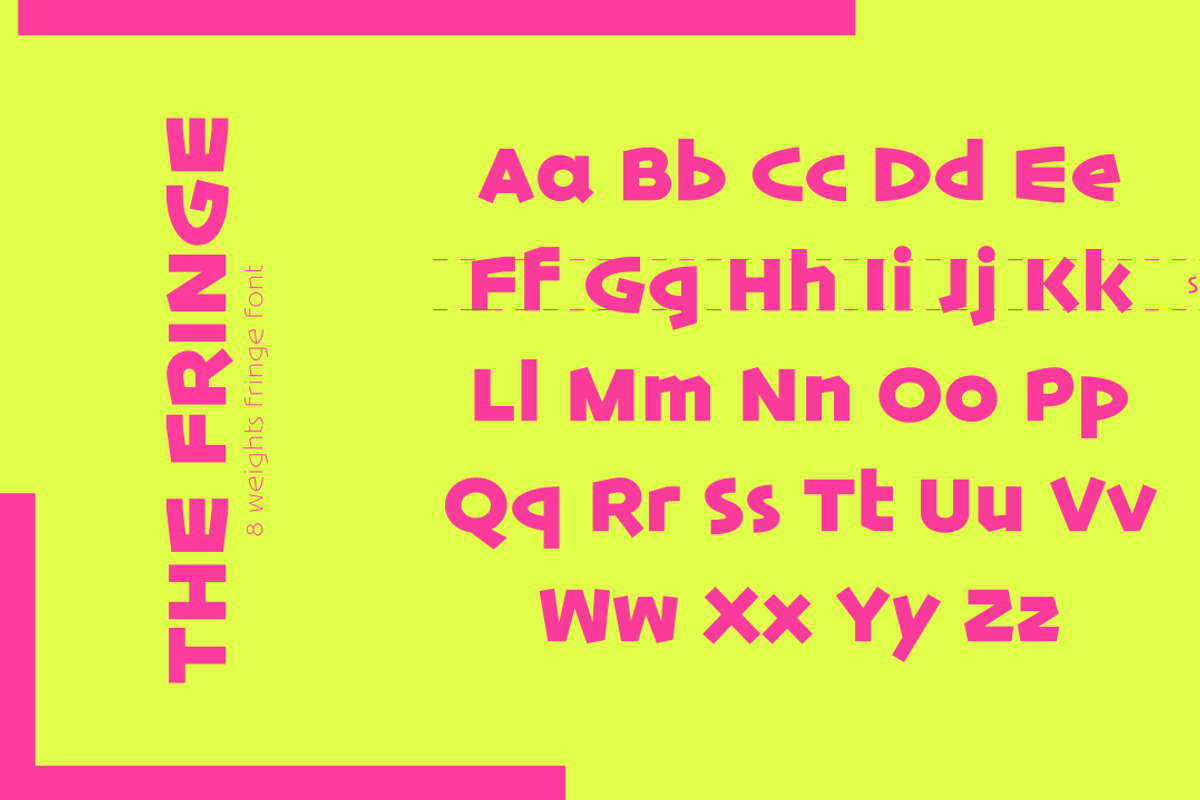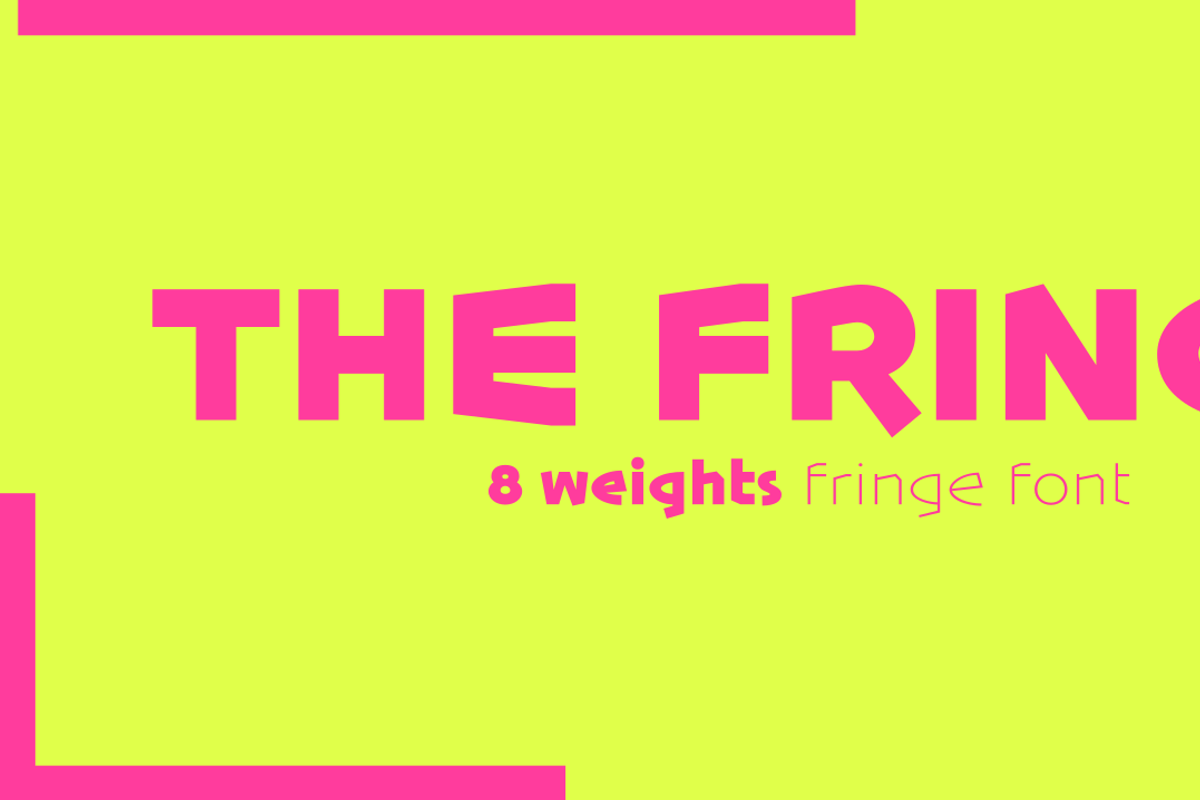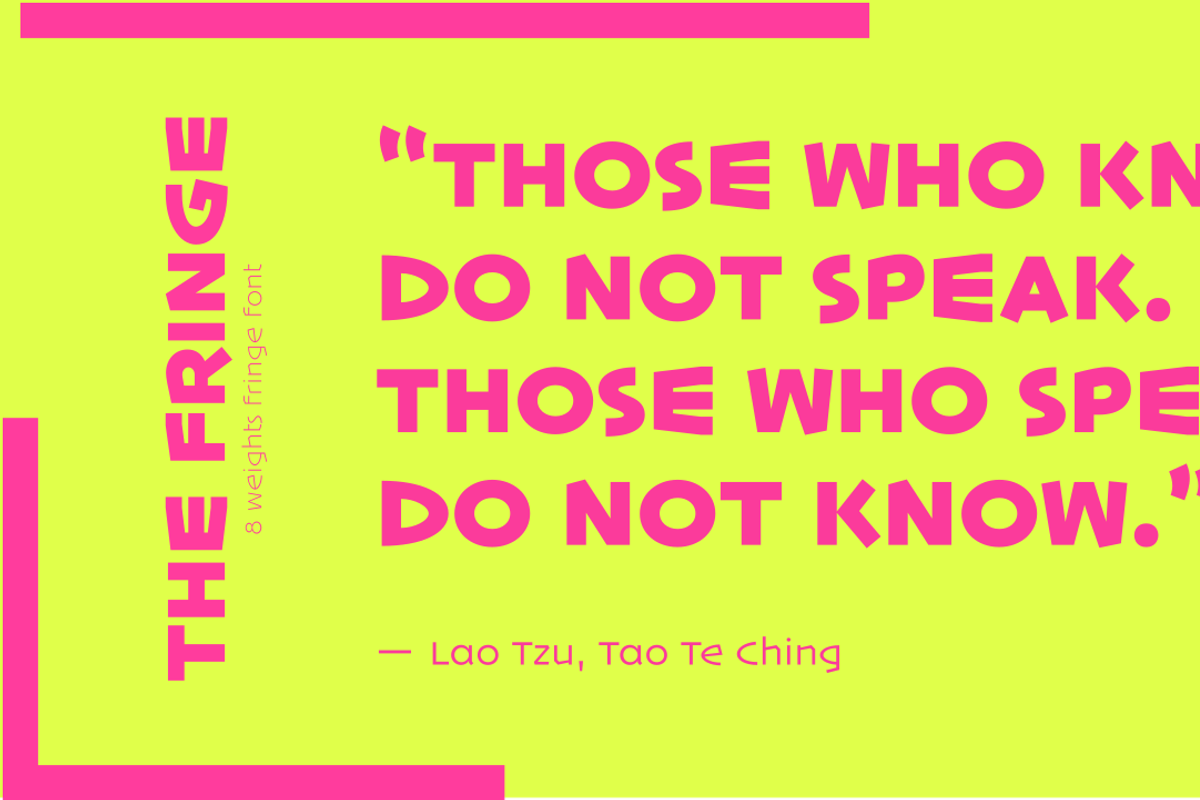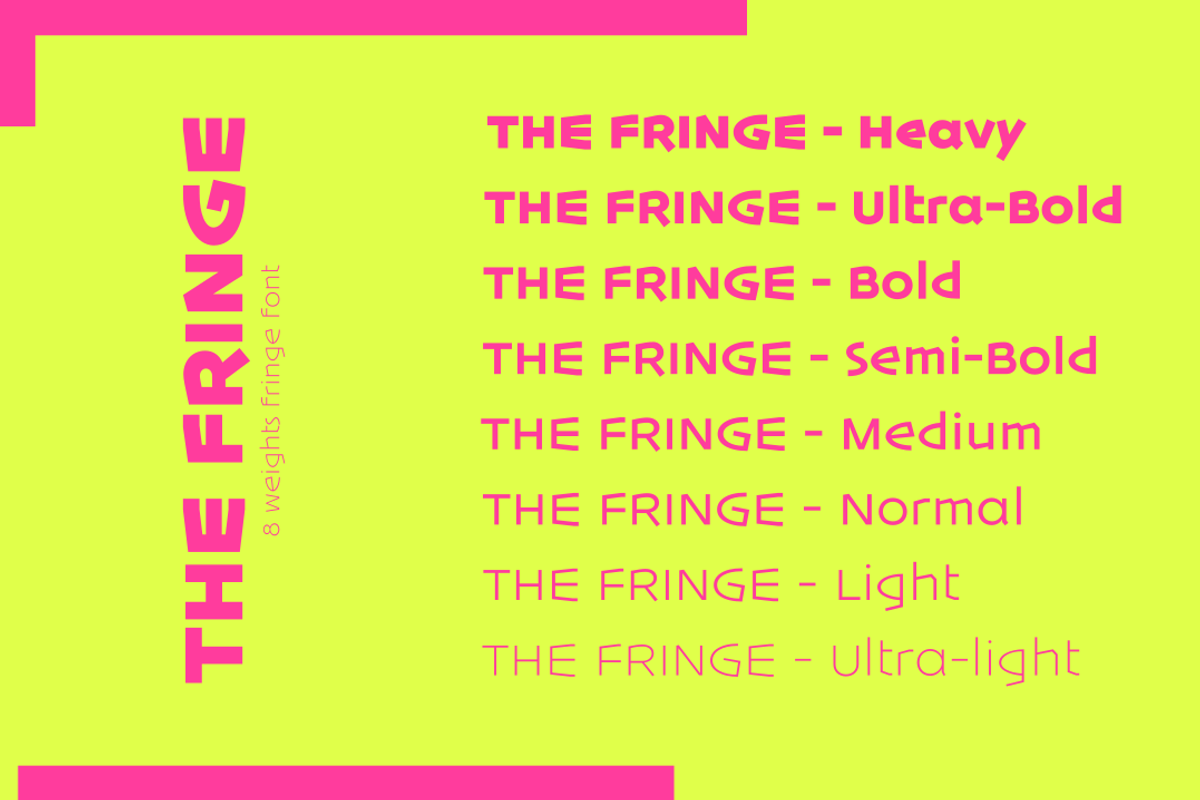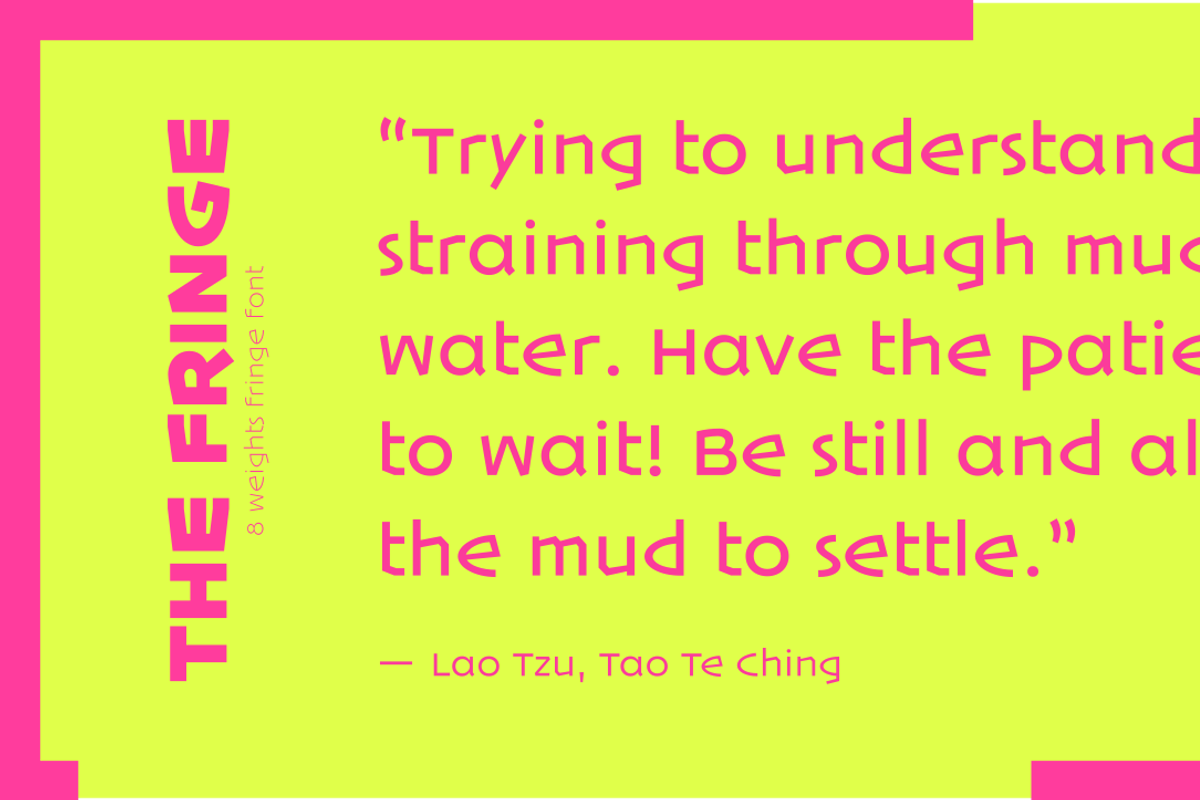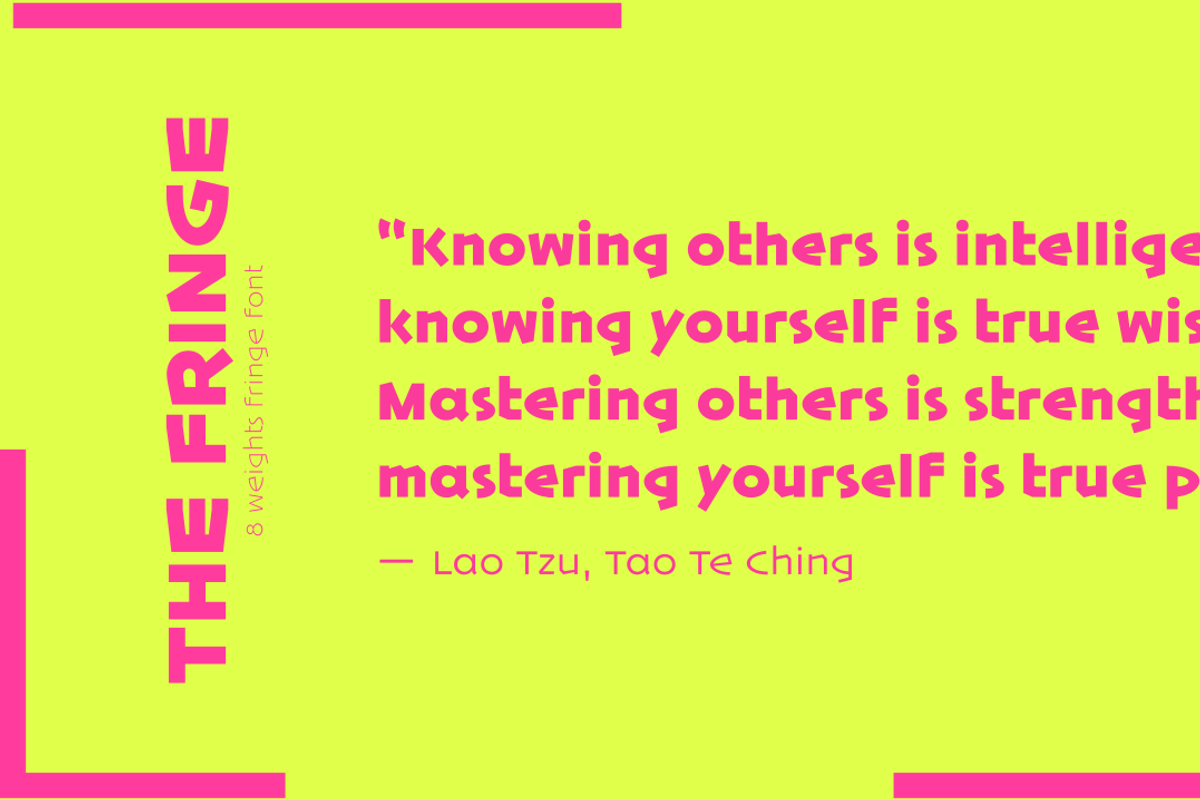
The Fringe
The FRINGE font is a geometric sans serif typeface designed by Ofir Shavit for the rebranding of The-fringe theatre. It's characterized by strong geometry and angular features, while maintaining high legibility. The font family includes eight weights ranging from extra-light to black, but lacks italics. Its character set is limited to English, basic punctuation, and the Hebrew alphabet.